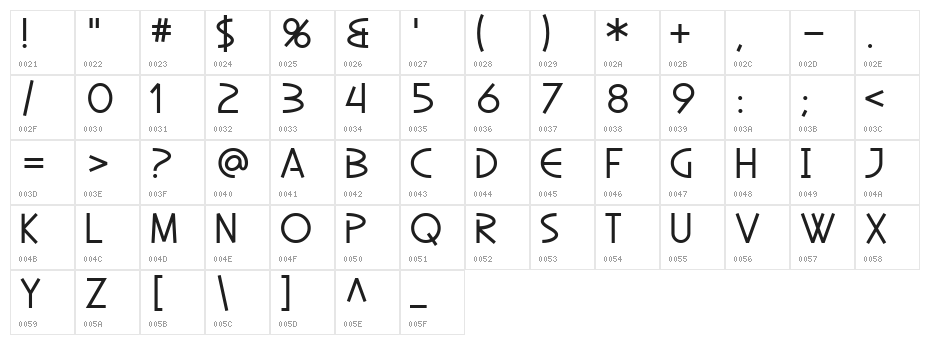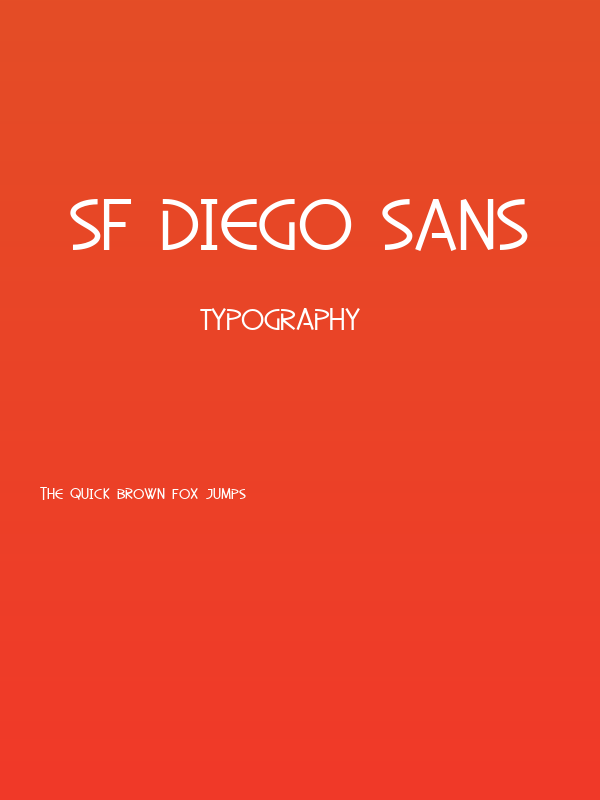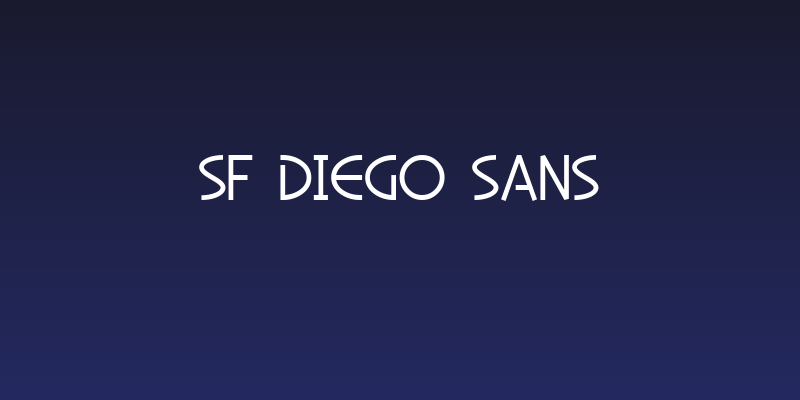
SF Diego Sans Font
SF Diego Sans Description
This font features a modern and geometric design with clean, sharp lines and a uniform stroke width. The characters are well-balanced, with a slightly condensed appearance that enhances readability. The uppercase letters exhibit a strong presence, while the lowercase letters maintain a consistent style. The numerals are distinct and align well with the overall aesthetic. Special characters are crafted to match the font's sleek and contemporary look, making it versatile for various design applications.